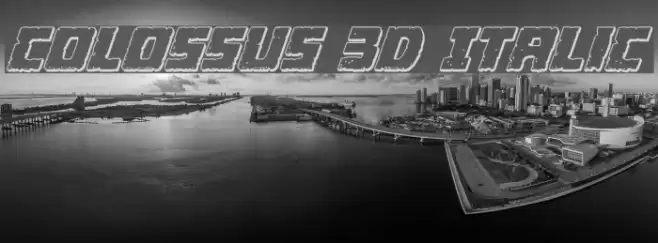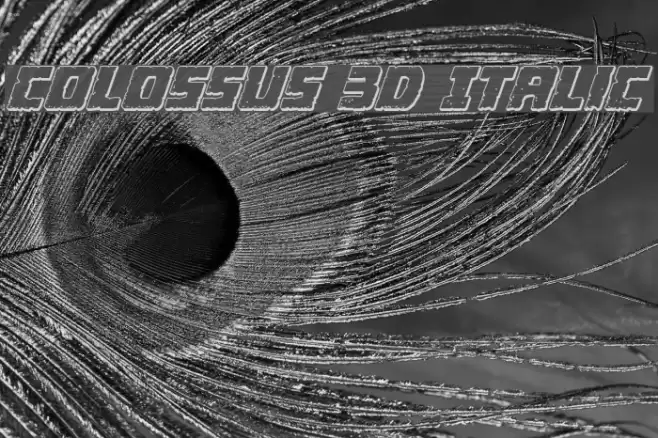
Colossus 3D Italic Font
Colossus 3D Italic Description
This font features a bold, three-dimensional appearance with a distinct italic slant, giving it a dynamic and impactful look. The characters are outlined with a shadow effect, enhancing the 3D illusion. Each letter and number is robust and chunky, with a slightly rough texture that adds a gritty, industrial feel. The font's design is consistent across uppercase, lowercase, and numerical characters, maintaining a cohesive style. Special characters are also included, matching the bold and textured aesthetic. This font is ideal for projects that require a strong visual presence and a modern, edgy vibe.
A bold, 3D italic font with a textured, industrial look from Distorted Eroded fonts.
- Proposed Projects: Ideal for video game titles, movie posters, sports branding, and any project needing a bold, dynamic typeface.